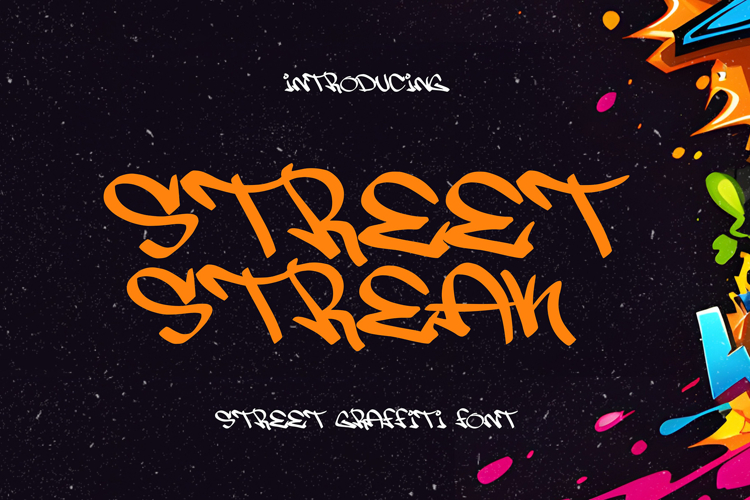
Street Streak Raw & Edgy Urban Graffiti Font
Street Streak – Raw & Edgy Urban Graffiti Font 🎨
Bring the true essence of street art to your designs with Street Streak, an authentic urban graffiti font that oozes attitude and creativity! Inspired by raw hand-drawn graffiti tags and bold street lettering, Street Streak delivers an untamed, high-energy look that’s perfect for hip-hop culture, underground branding, music covers, and urban-inspired visuals.
With its expressive brush strokes and street-style edge, this font adds an unmistakable raw, rebellious, and powerful vibe to any project. Whether you're creating posters, album covers, event flyers, or apparel designs, Street Streak guarantees a bold and electrifying statement.
💥 Why Choose Street Streak?
✅ Authentic Graffiti Style – Designed to mimic real spray-painted street tags.
✅ Edgy & Expressive – Perfect for music, hip-hop, and underground aesthetics.
✅ Handcrafted Energy – Rough strokes for a raw, rebellious feel.
✅ Super Versatile – Ideal for posters, branding, merchandise, and social media.
✅ Multilingual Support – Covers multiple languages for global appeal.
✅ Complete Character Set – Includes uppercase, lowercase, numbers, punctuation, and special symbols.